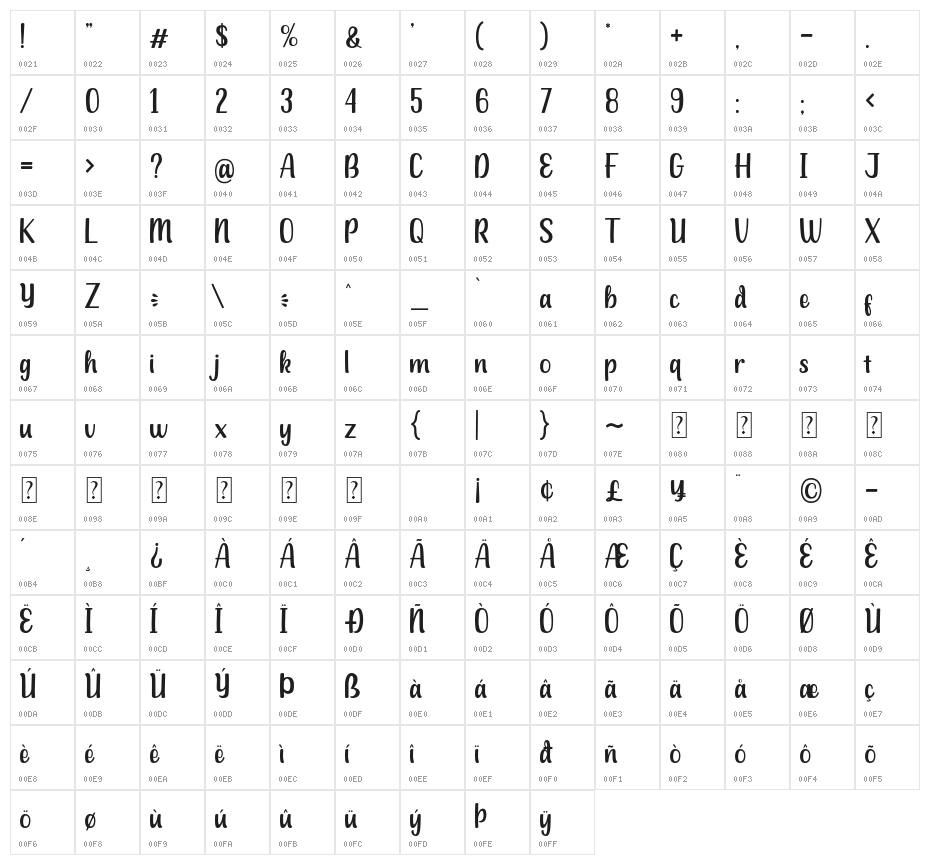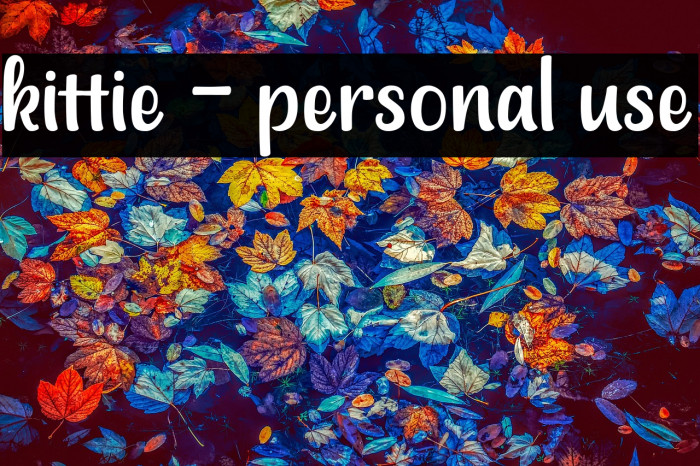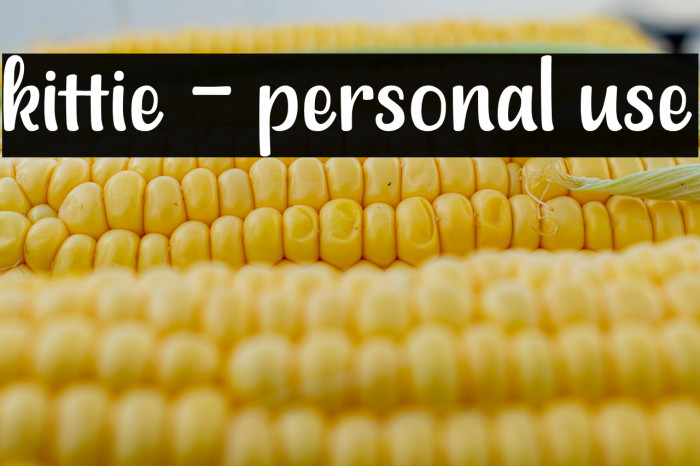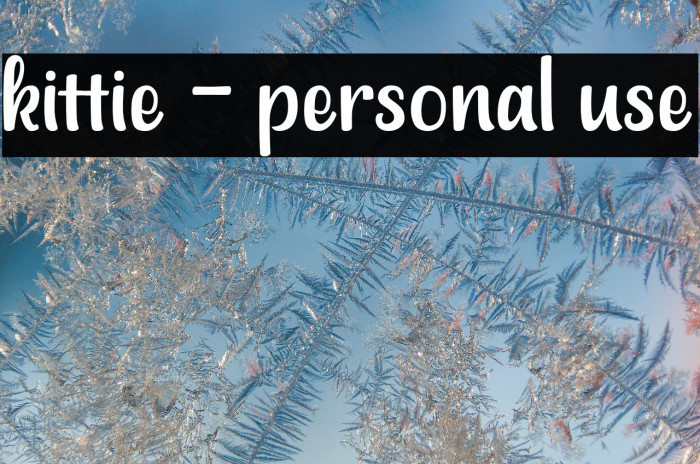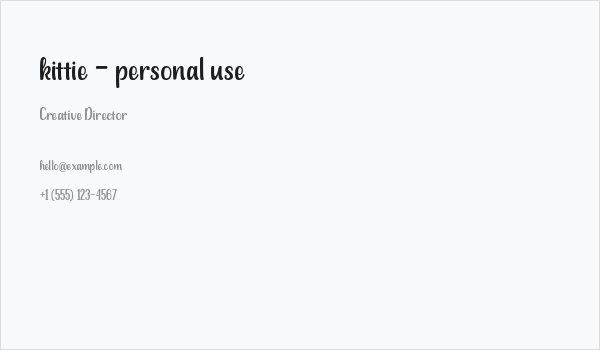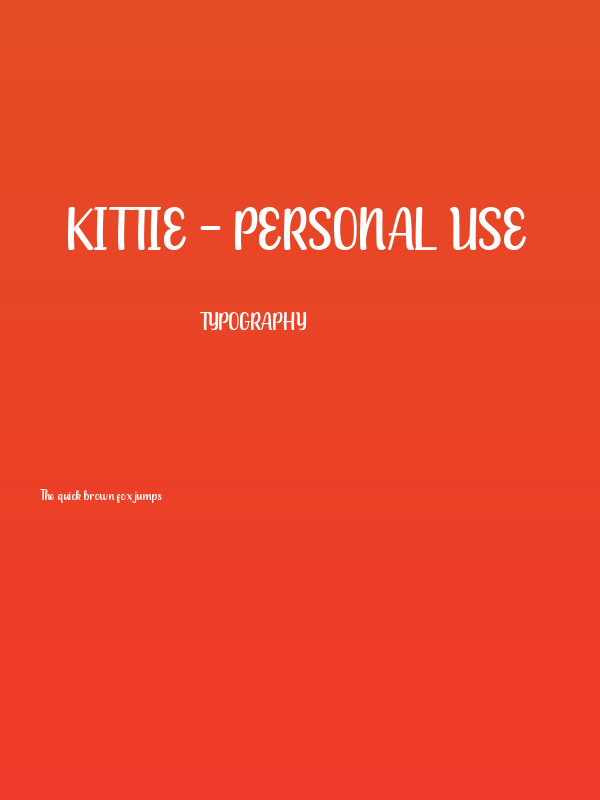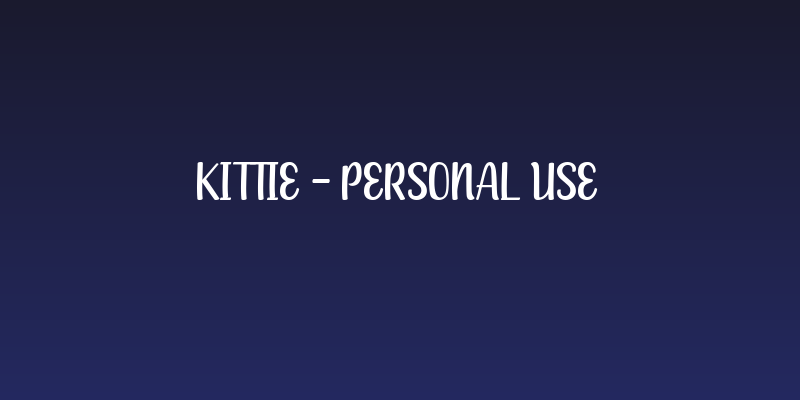
kittie - personal use Font
kittie - personal use Description
This font features a playful and whimsical style with a handwritten appearance. The characters are bold and rounded, giving them a friendly and approachable look. The uppercase letters are tall and slightly narrow, while the lowercase letters have a more casual and relaxed feel. The numbers are consistent with the overall style, maintaining the same playful and rounded characteristics. Special characters are creatively designed, adding to the font's charm. This font is ideal for projects that require a fun and informal touch.
| Proposed Projects | Ideal for greeting cards, children's books, playful branding, and social media graphics. |